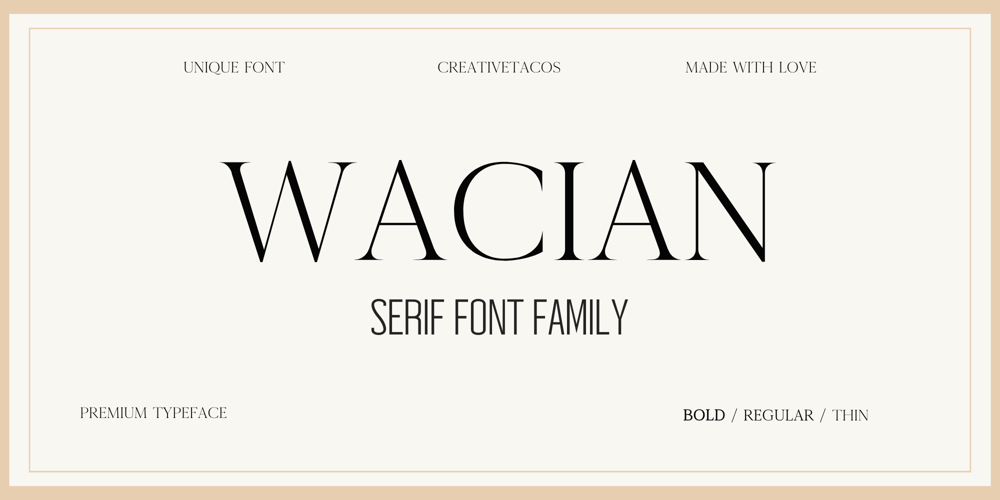
Wacian Serif Font Family was designed by Faraz Ahmad and published by Creativetacos. Wacian Serif contains 3 styles and family package options. Wacian is a fresh, modern-looking serif font with three weights: light, regular, and bold. It includes all the basic characters you need, plus some extra ones for languages other than English. You can use Wacian for all sorts of design work like big titles, and posters, branding your business, making things look nice, and more.This font has everything from big letters to small ones, numbers, and special signs. It also has special characters for different languages. With Wacian, you can write in many ways and make your work look good.Included Features:Font Weight: Regular, Thin, and BoldWacian Font Features: Uppercase Letters Lowercase Letters Numbers & Punctuation Non-English Characters ( Latin Supplement + Latin Extended-A) Supported Characters: ABCDEFGHIJKLMN’PQRSTUVWXYZ abcdefghijklmnopqrstuvwxyz 0123456789 !”#$%&'()*Û,-./:;=?@[]^_`{|}~ ¡¢«´»¼½¾¿‘’“”…‰‹›⁄€ˆˇˉ˘˙˚ ȦÀÁÂÃÄÅÇÈÉÊËÌÍÎÏÑÒÓÔÕÖØÙÚÛÜÝàáâãäåçèéêëìíîïñòóôõöøùúûüÿ ĀāĂ㥹ĆćĈĊċČčĎďĒēĔĕĖėĘęĚěĜĞğĠġĤĨĩĪīĬĭİŨĴĹĽľŁłŃńŇňŌōŎŏŔŘř ŚśŜŞşŠšŤťŨũŪūŬŭŮůŴẀẂẄẼỲŶŸŹźŻżŽž ǫɢɪɴʀʏʙʜʟᴀᴄᴅᴇᴊᴋᴍᴏᴘᴛᴜᴠᴡᴢꜰꜱ